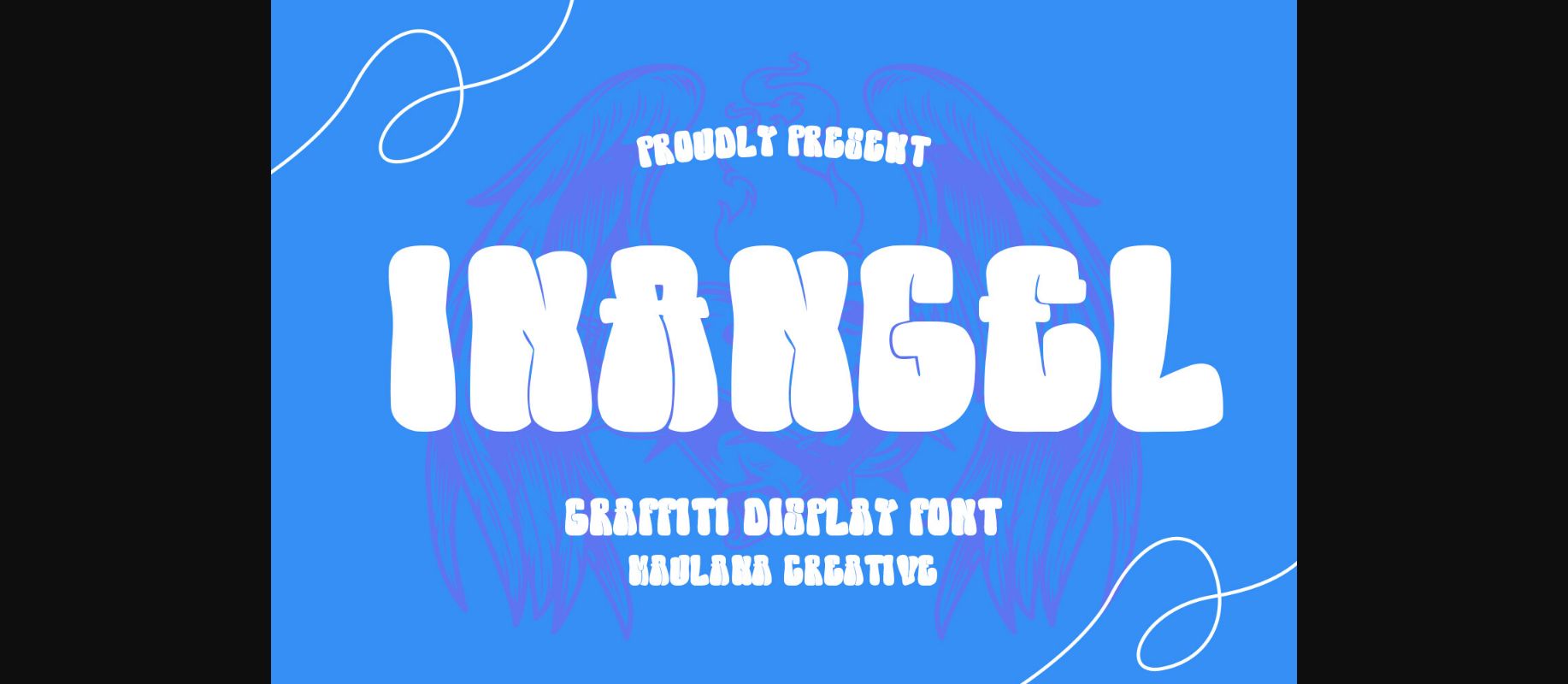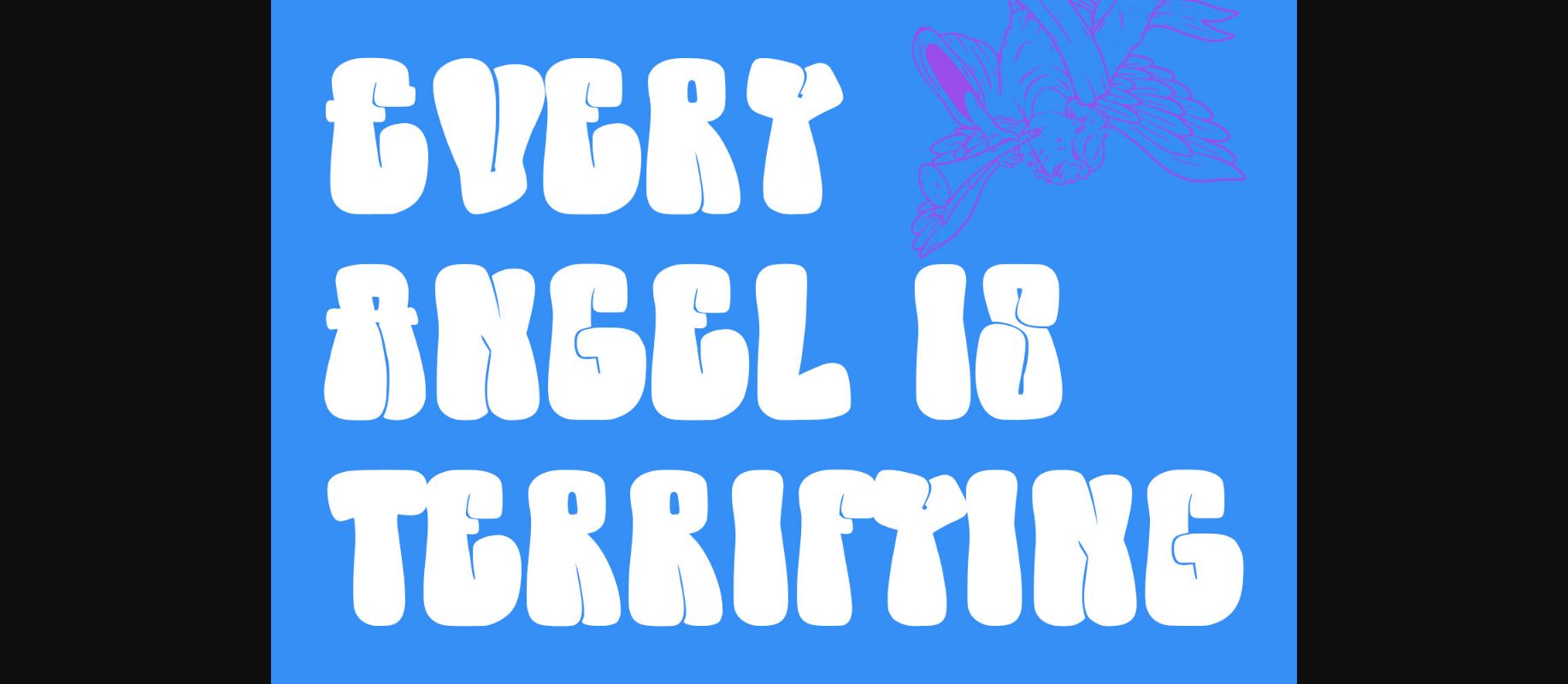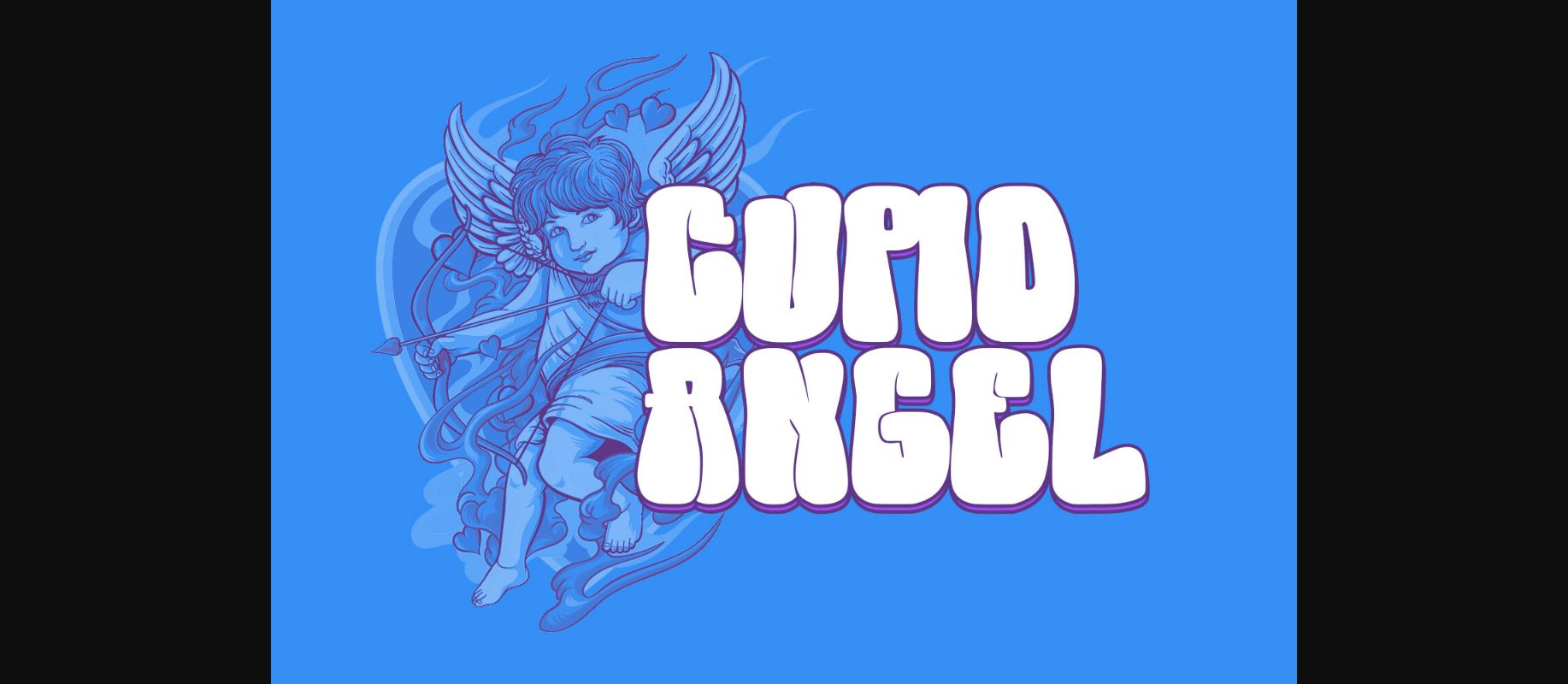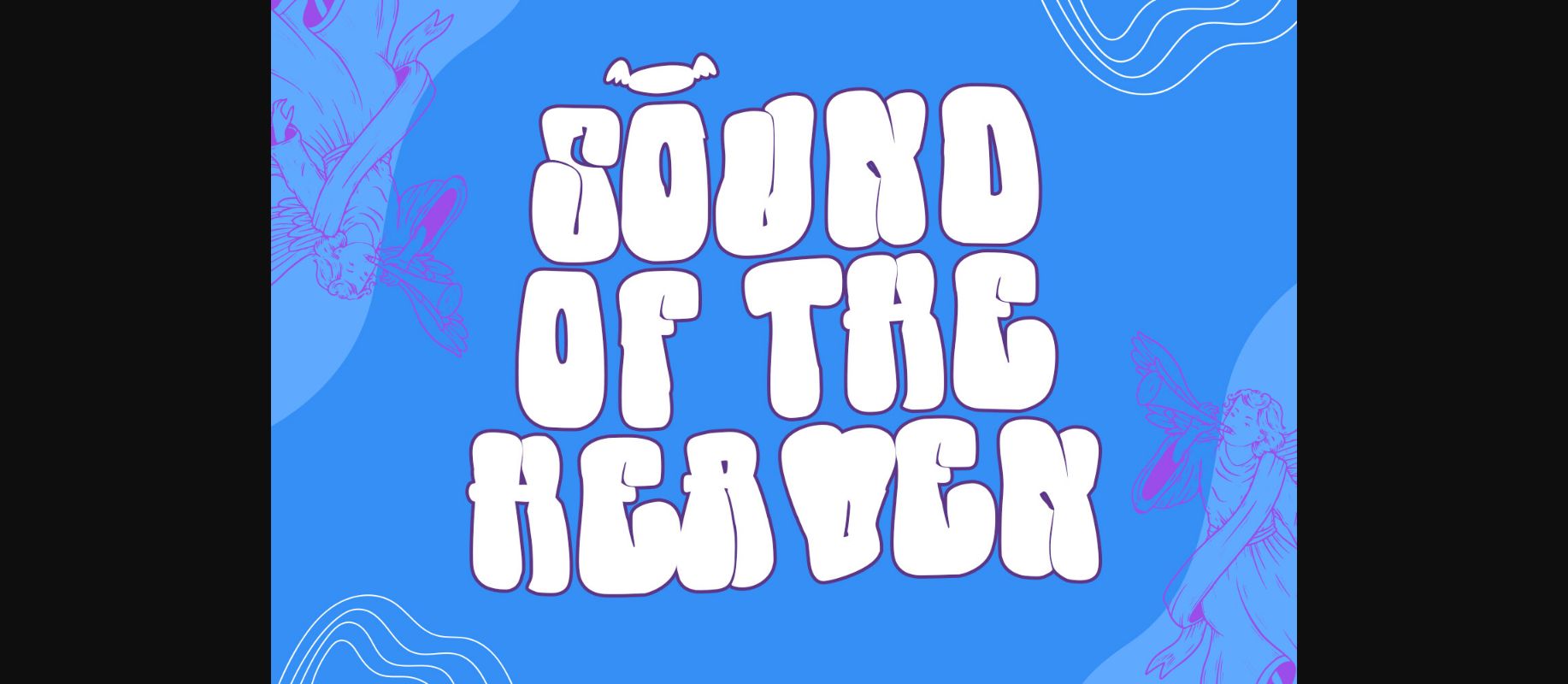
About Inangel Font
Inangel graffiti display font. Bold stroke, fun character with a bit of ligatures and alternates. To give you an extra creative work. Inangel graffiti display font support multilingual more than 100+ language. This font is good for logo design, Social media, Movie Titles, Books Titles, a short text even a long text letter and good for your secondary text font with script or serif. Make a stunning work with Inangel graffiti display font.